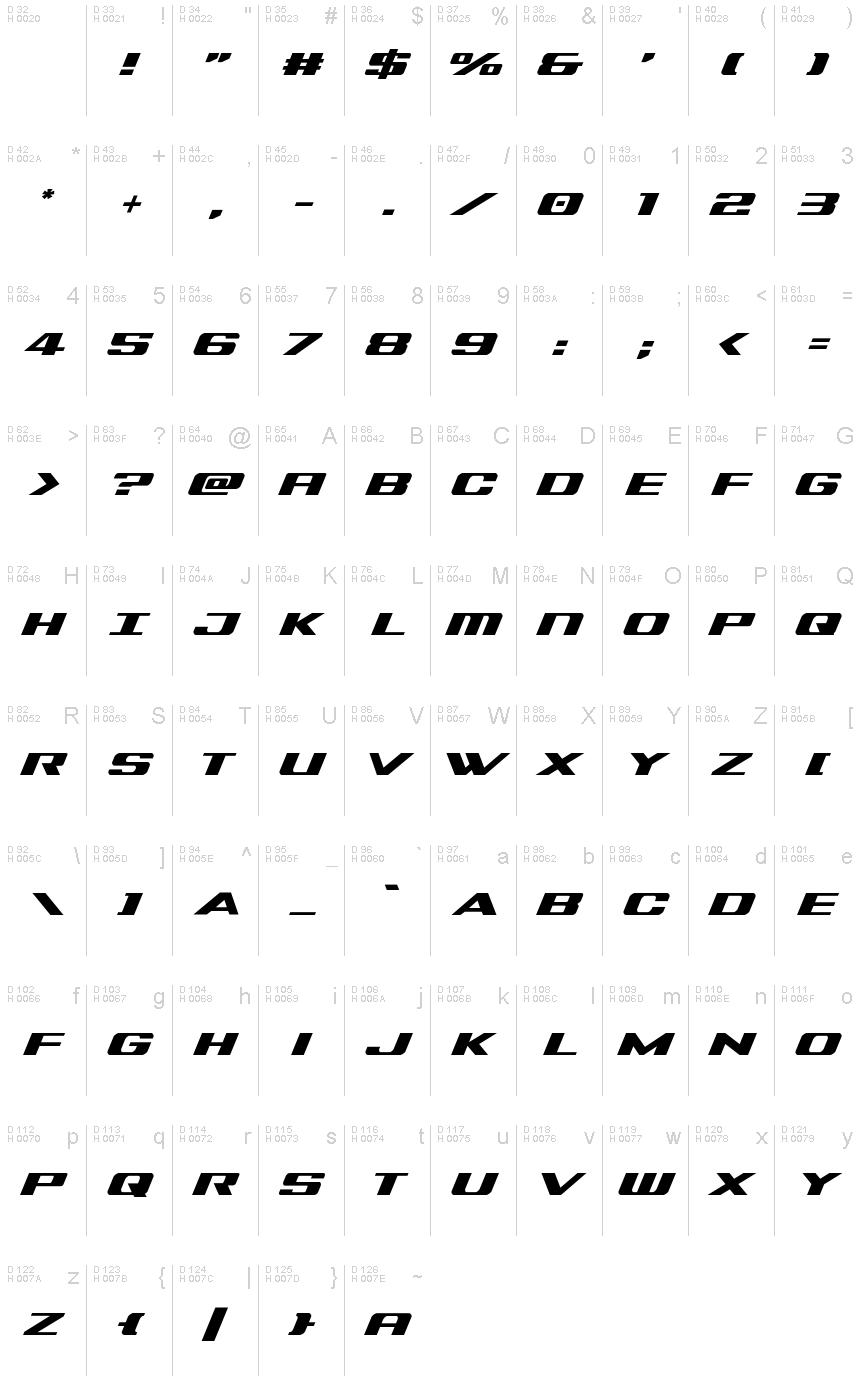
Tigershark Italic, designed in 2024 by Iconian Fonts, is a free modern display font with a forceful, forward-leaning build. Broad capitals, clipped curves, and sharp internal cuts give the lettering the speed and aggression of a racing graphic.
Motorsport branding and esports graphics both suit its rapid movement and engineered edges. It feels fast before it says anything. Album covers and action-game title cards can use the same angular silhouette to echo machinery, armor, or high-performance equipment.